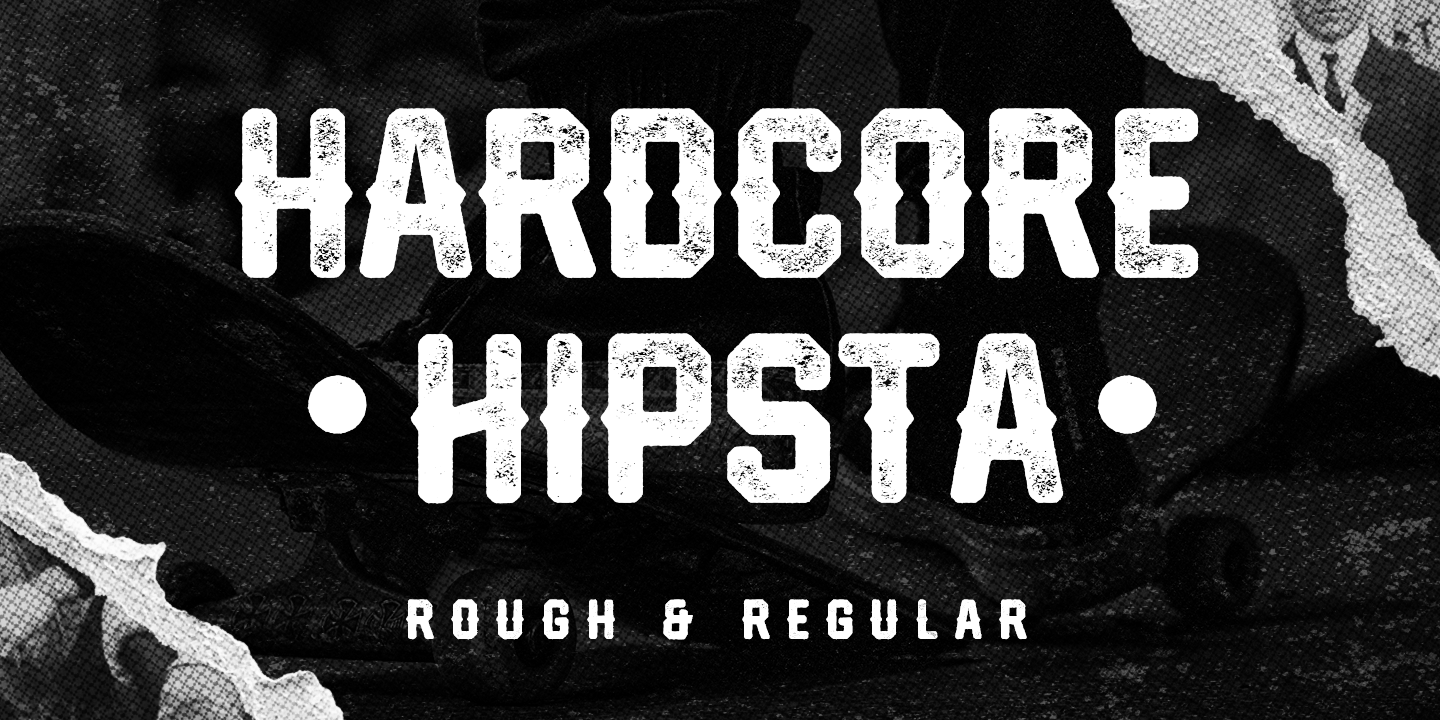
Hardcore Hipsta Font is perfect for indie band album covers, vintage coffee shop branding, artisan brewery logos, underground music venue posters, alternative fashion labels, retro skateboard graphics, urban street art projects, hipster restaurant menus, craft distillery packaging, and authentic subculture marketing materials.
What makes Hardcore Hipsta Font so exciting is its raw, uncompromising blend of rebellious street culture with sophisticated vintage aesthetics that refuses to conform to mainstream typography trends. This font captures the essence of authentic counterculture movement, featuring distressed letterforms that appear weathered by underground music venues and late-night creative sessions. The bold, unapologetic characters embody the spirit of independent thinking and artistic rebellion, making every word feel like a statement of authentic individuality and creative freedom.
The Hardcore Hipsta Font family includes Regular, Bold, Distressed, Outline, and Shadow variations, along with special grunge textures and alternative character sets. Each style maintains the font's distinctive underground personality while offering different levels of intensity for various subcultural applications, from subtle branding elements to aggressive poster headlines that demand attention.
This rebellious typeface brings genuine street credibility to contemporary design projects. The Hardcore Hipsta Font Free Download offers designers an invaluable resource for creating authentic brand identities that resonate with alternative culture enthusiasts and independent-minded audiences. Whether you're developing underground music branding, designing artisan product packaging, or creating authentic urban lifestyle materials, this font delivers unmatched cultural authenticity and visual edge.
The carefully crafted letterforms in Hardcore Hipsta Font feature intentional imperfections, rough edges, and organic irregularities that mirror the handmade aesthetic of true underground artistry. Each character has been designed to feel authentically weathered while maintaining optimal readability across different applications. The font's distinctive personality makes it particularly effective for brands seeking to communicate genuine authenticity, creative independence, and countercultural values.
Creative professionals appreciate how Hardcore Hipsta Font instantly establishes credibility within alternative culture communities without appearing manufactured or inauthentic. The extensive glyph set includes vintage symbols, music notation elements, and international language support, ensuring versatility across diverse subcultural applications. This makes it an essential resource for designers working with independent musicians, artisan brands, alternative lifestyle companies, and any organization seeking to communicate authentic rebellion and creative nonconformity.